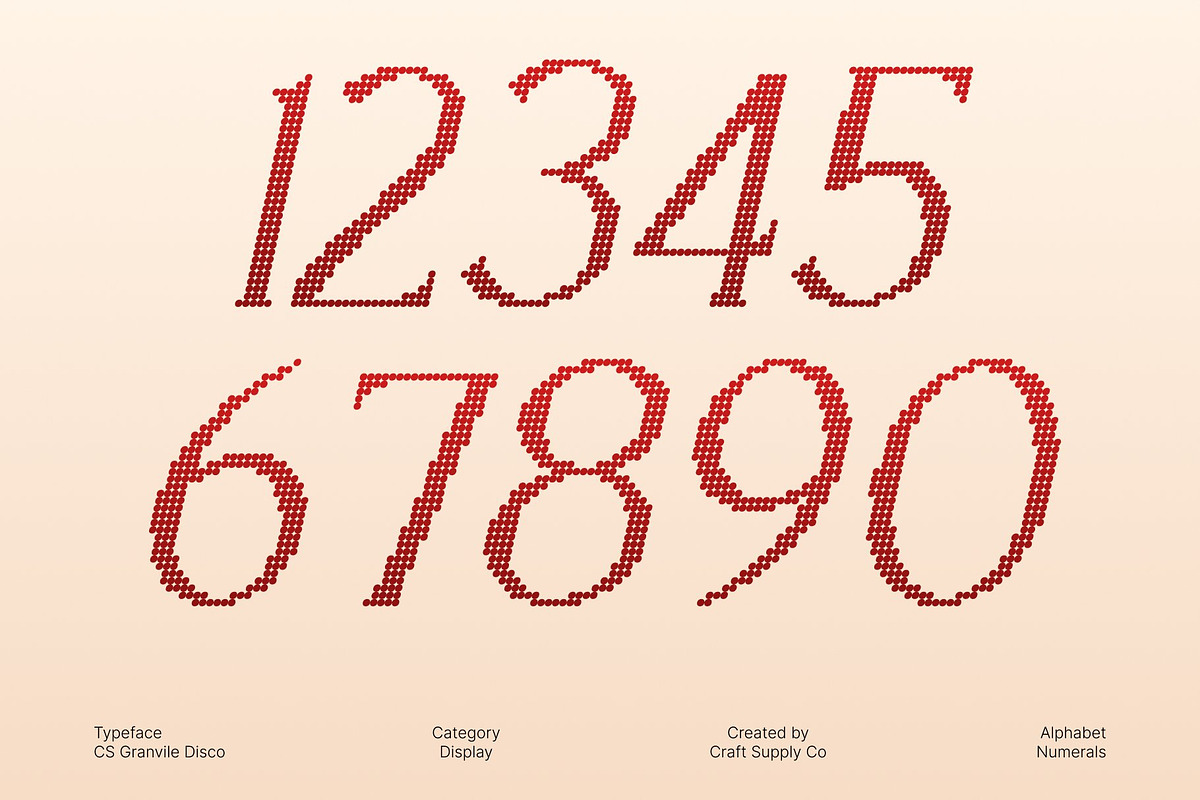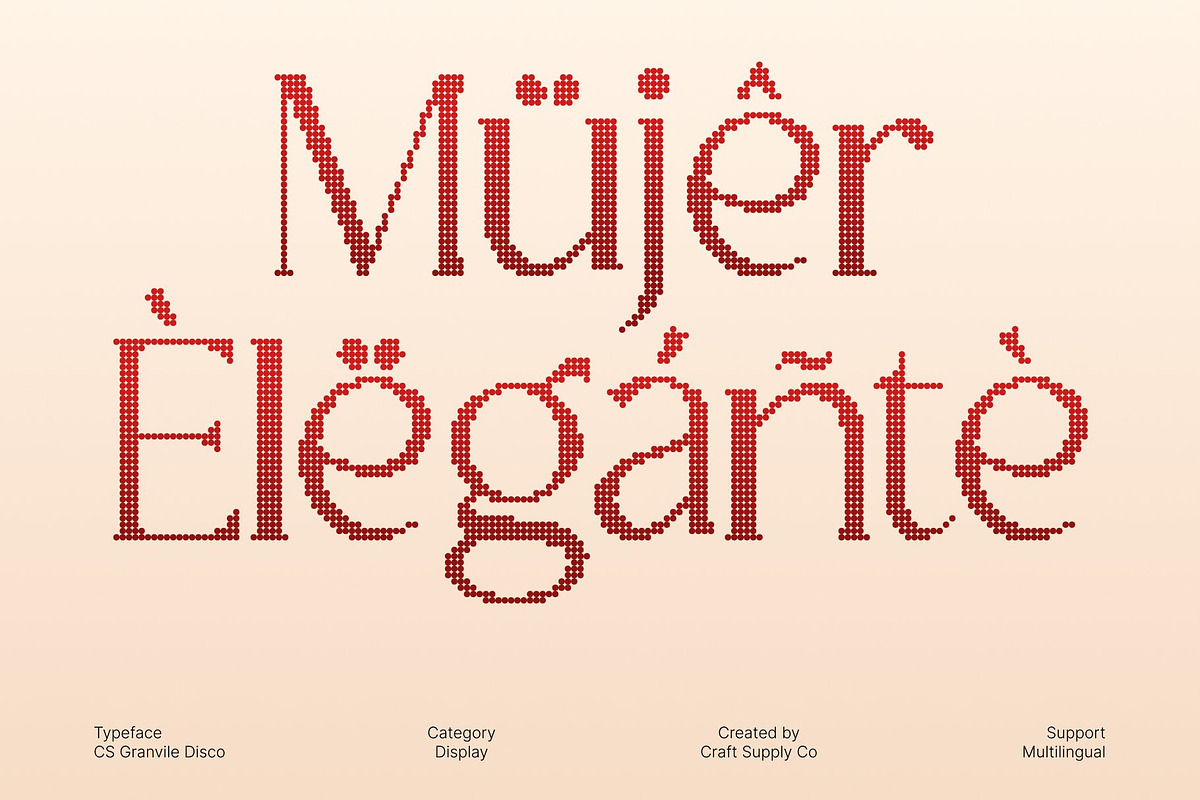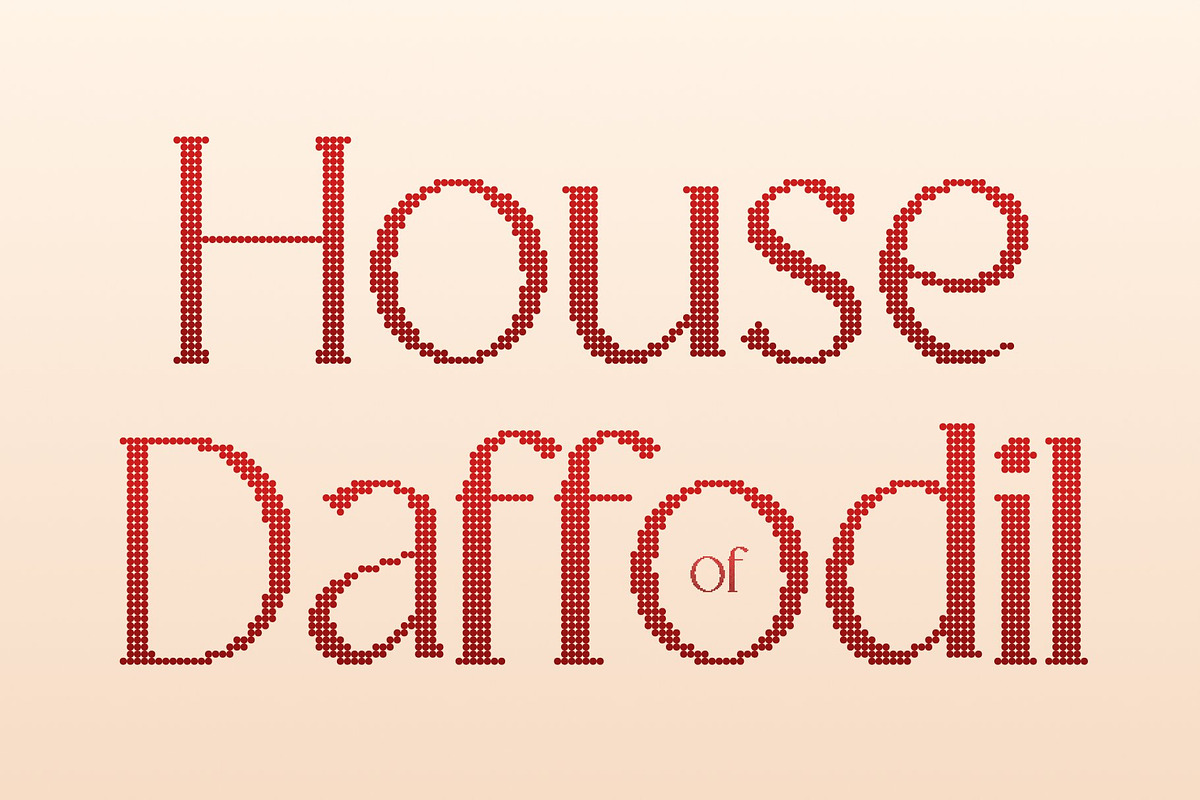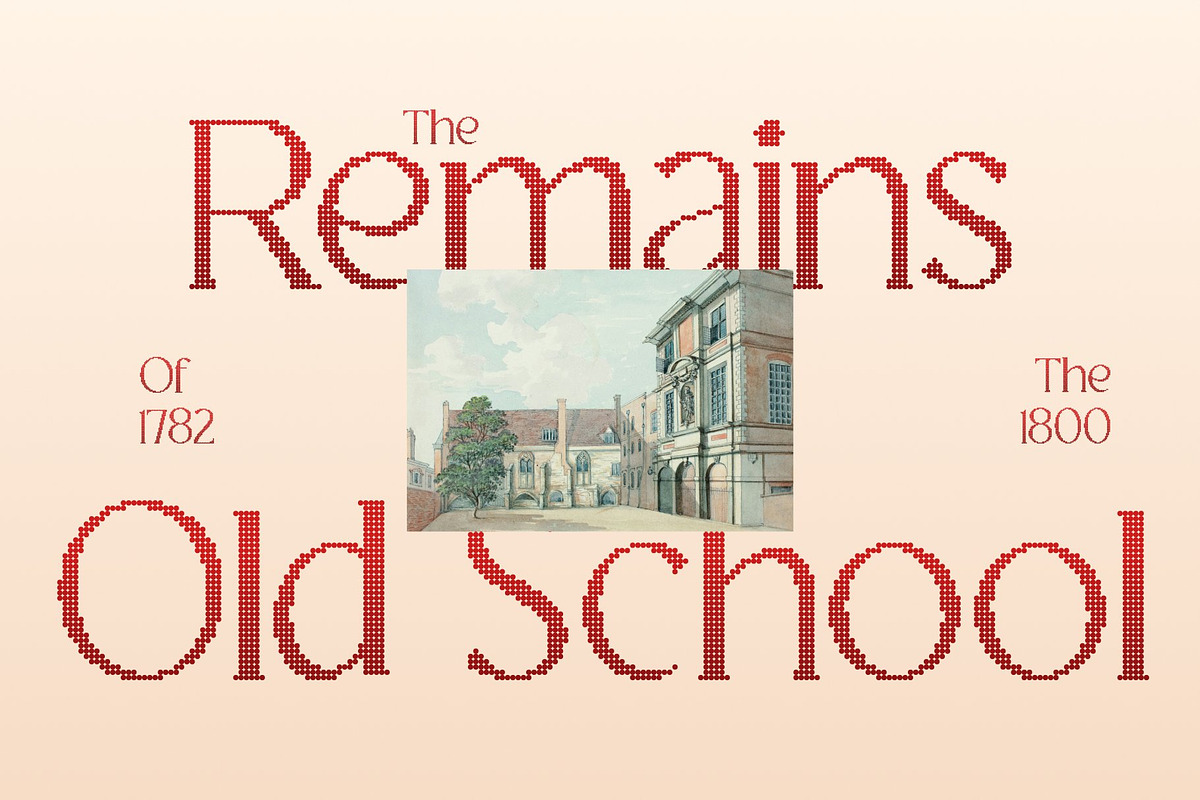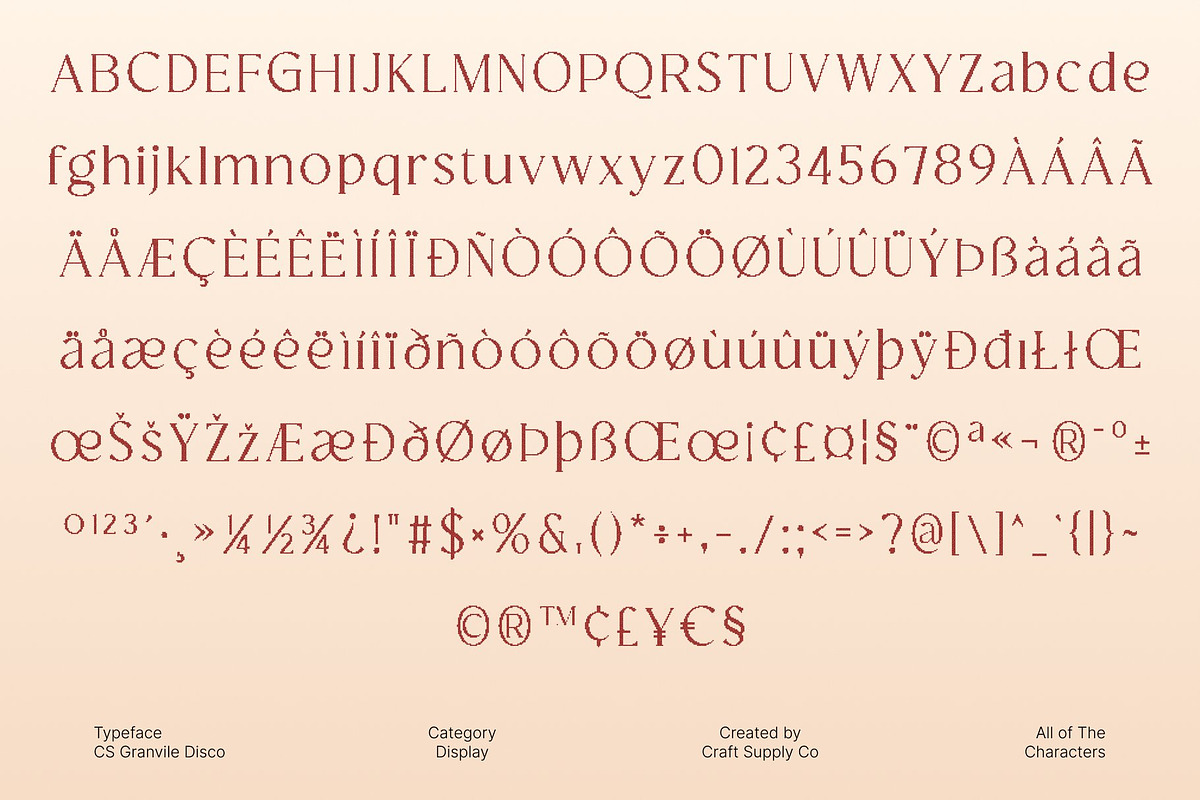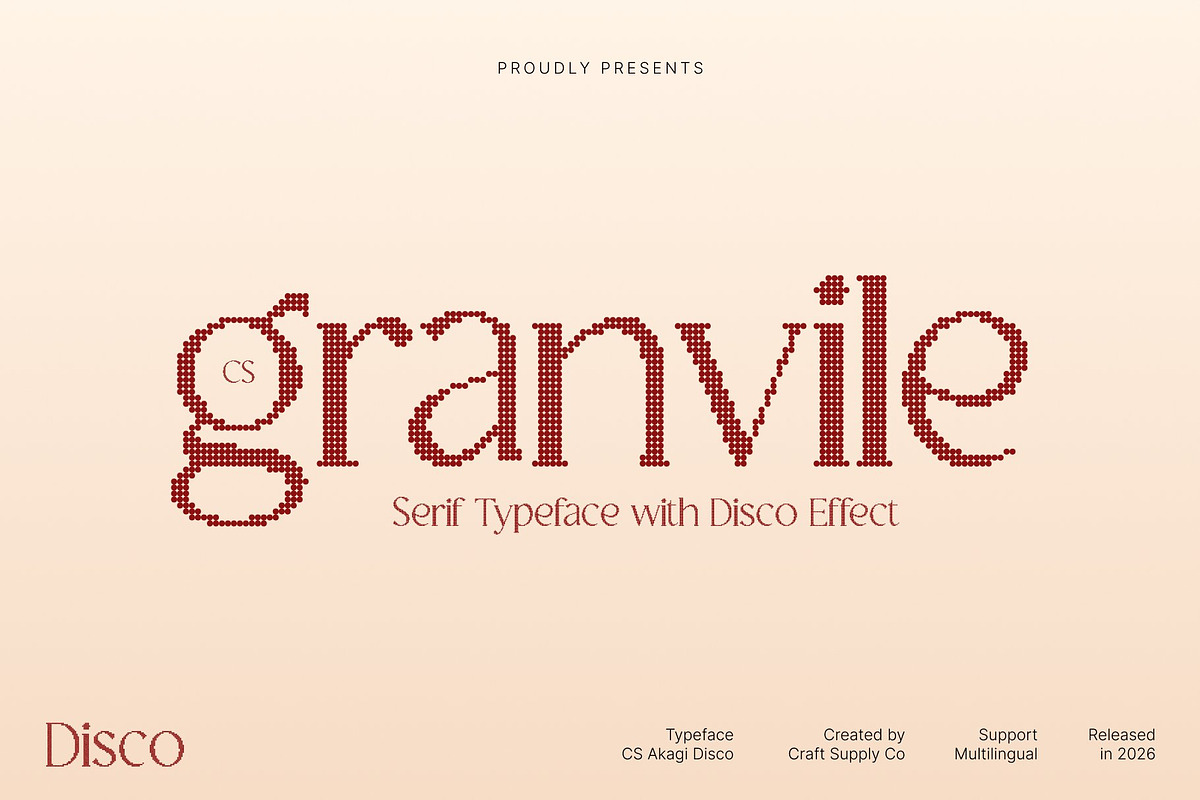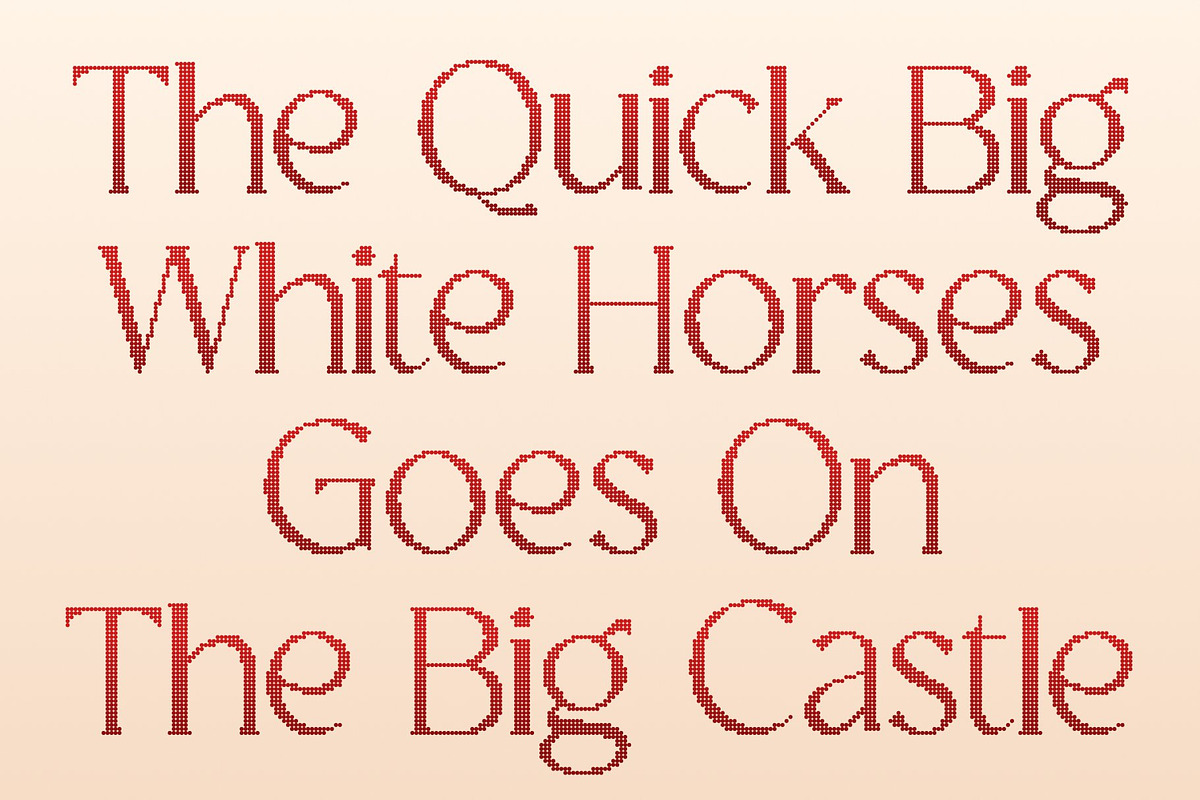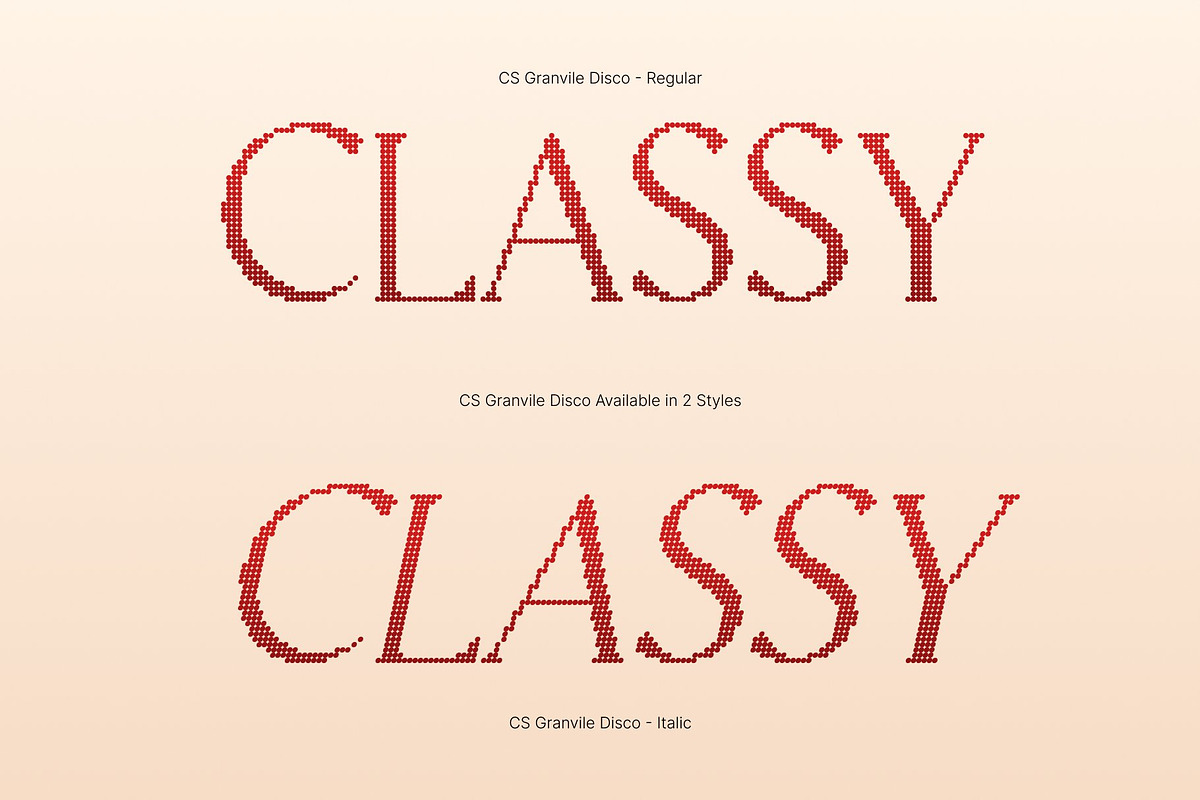
CS Granvile Disco
CS Granvile Disco – Classic Elegance with Refined Disco Sophistication
Timeless Serif with Luxurious Disco Character This is an elegant serif font that blends classical refinement with a subtle disco glow. Its graceful curves and carefully crafted letterforms express timeless beauty, while the disco-inspired attitude adds a sense of movement and allure like classic typography dressed for an evening under shimmering lights. The result feels confident, sophisticated, and effortlessly glamorous.
Elegant Curves with Radiant Presence Smooth, balanced curves give this font a distinguished and luxurious appearance, while refined proportions ensure clarity and authority. Enhanced with a disco mood, the typography feels alive and expressive, carrying a gentle sparkle that elevates layouts without overpowering them. It delivers beauty, balance, and a refined festive energy that draws the eye naturally.
Perfect for Luxury, Editorial, and Evening-Ready Branding Designed for luxury branding, fashion editorials, premium packaging, and upscale visual identities, shines in projects that demand elegance with personality. Its poised structure and refined contrast make it ideal for magazine covers, high-end campaigns, and branding that wants to feel exclusive yet vibrant.
A Serif That Defines Sophistication with a Touch of Shine More than a classic serif, this font represents timeless taste enhanced by modern nightlife charm. Blending traditional craftsmanship with contemporary execution, it brings understated glamour and confident rhythm to logos, titles, and refined print designs perfect for creatives who want elegance that still knows how to sparkle.